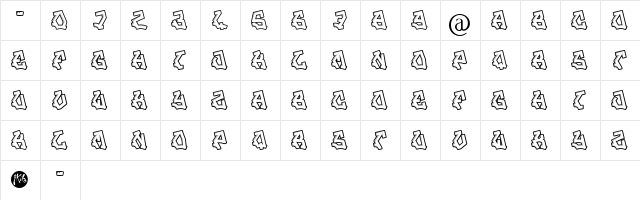
JAM SESSION Regular Font Preview
JAM SESSION Regular
Design Context for JAM SESSION Typeface
JAM SESSION is a composed and adaptable typeface that performs quietly and consistently across a wide range of design contexts.